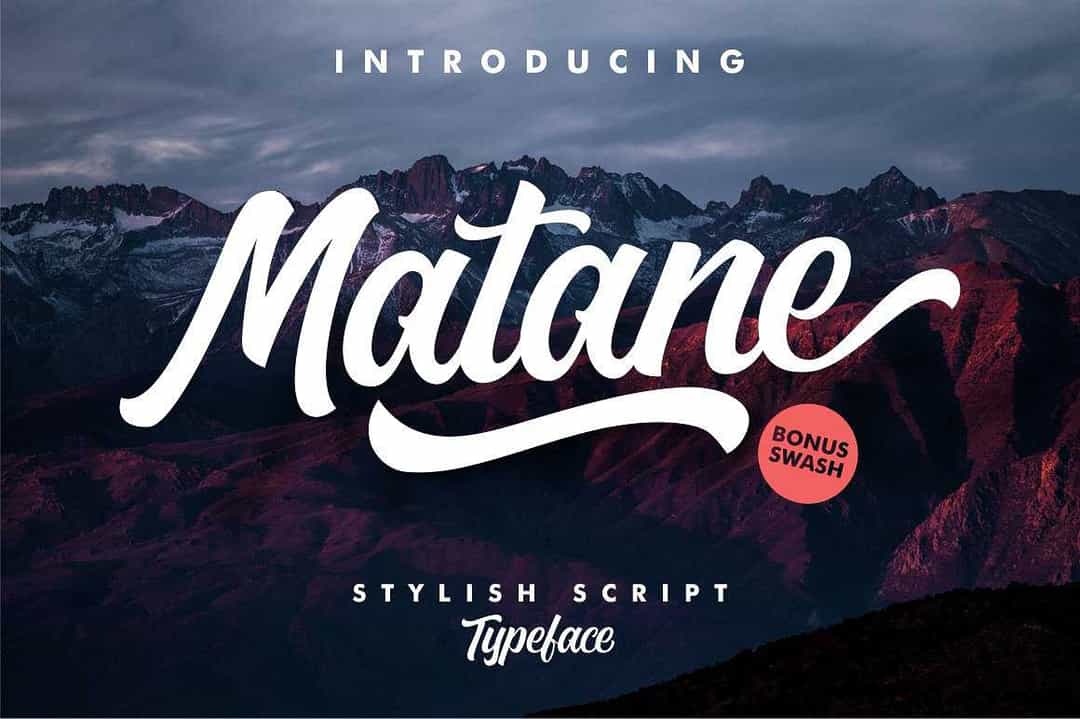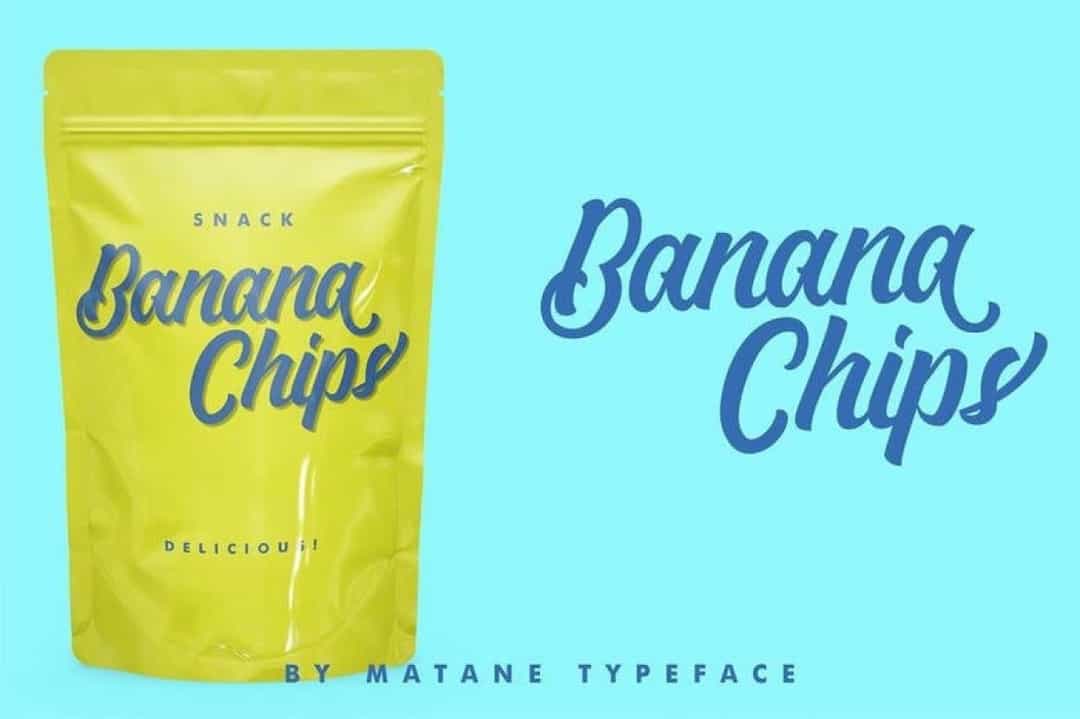
Here is our first product that we name Matane Typeface. Matane Typeface is a sophisticated handwriting script painted by hand. We provide bonus swash design to make the Matane Typeface look so attractive for everyone. It has fancy and dynamic opentype features.